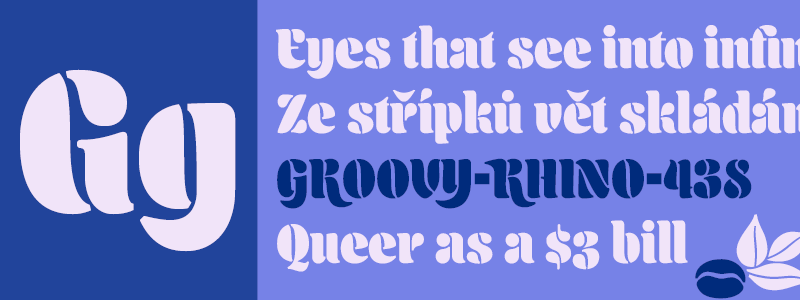
Font name: | Aromatron Ornaments |
Categories | Dingbats, Nature |
Author: | Adam Jagosz |
Note by Adam Jagosz | |
Purchase the Commercial License at: https://www.creativefabrica.com/product/aromatron/ref/63246/ Aromatron explores the stencil type genre, gracefully balancing between legibility and aesthetics. Unique solutions give the type an even, dark color. The font supports most Latin-based languages and IPA, features lining and old-style figures, small, petite and medium caps, swash caps, subscript & superscript, and stylistic sets eliminating ascenders, descenders, or both for a unicase effect or compact typesetting. As an extra, a selection of typographic ornaments and dingbats is provided. To use the advanced features built into the font, use an OpenType-savvy application and follow the enclosed PDF User Manual. |